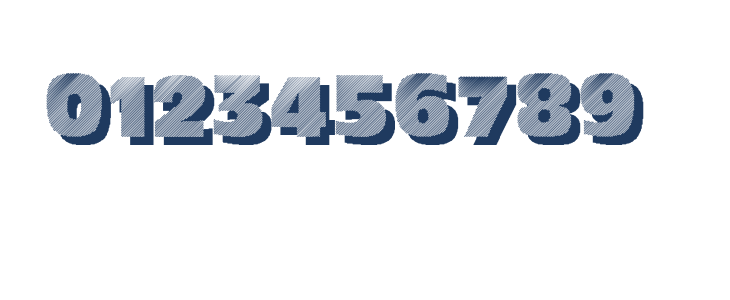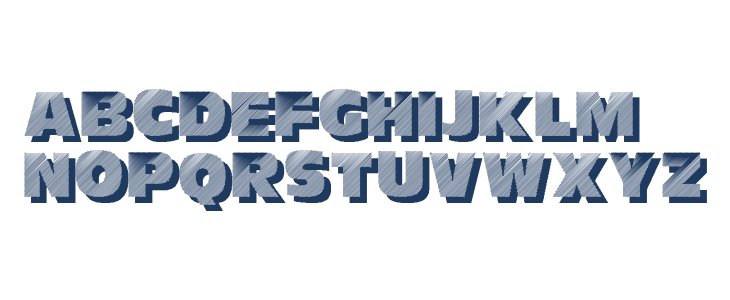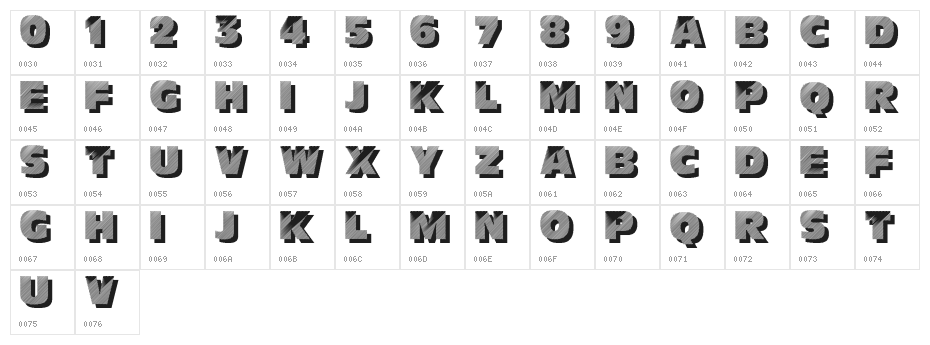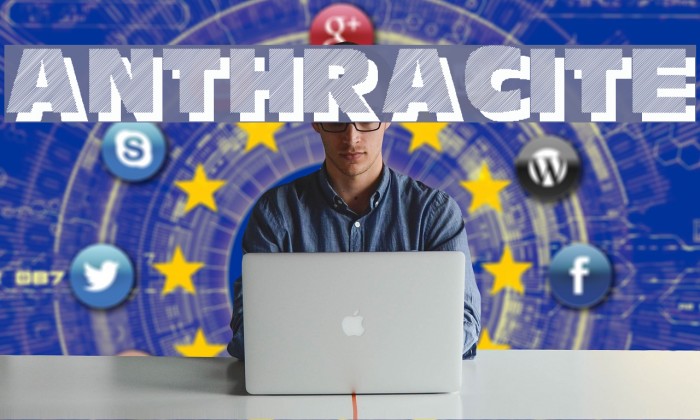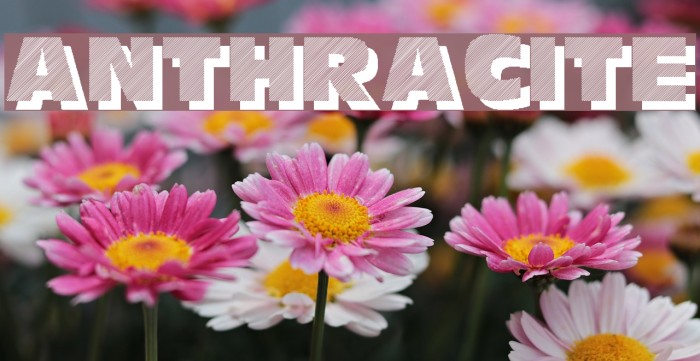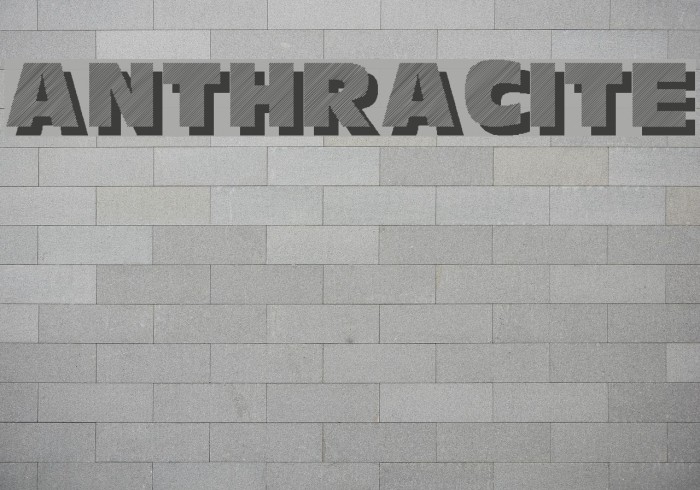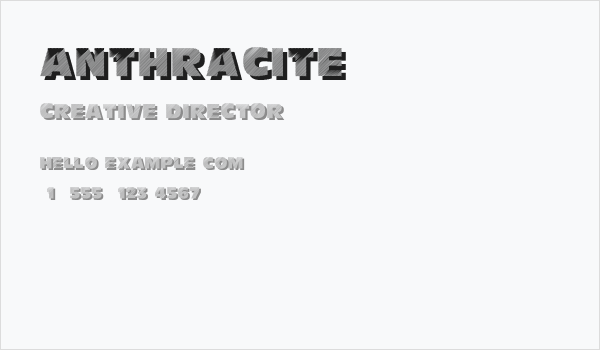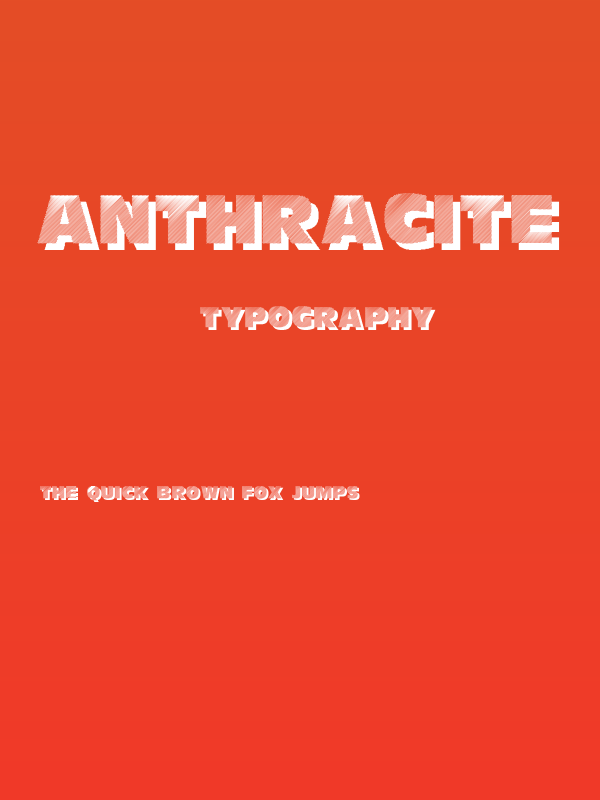
Anthracite Font
Anthracite Description
This font features a bold, three-dimensional design with a distinct shadow effect, giving it a striking and impactful appearance. The characters are uppercase and numerals, with a consistent width and height that contribute to its uniform look. The diagonal lines within each character add a textured, engraved feel, enhancing its decorative quality. The font's strong presence makes it suitable for attention-grabbing headlines or titles. Its geometric structure and clean lines provide a modern aesthetic, while the shadow effect adds depth and visual interest.
Proposed ProjectsIdeal for posters, logos, headlines, and any design requiring a bold, impactful typeface.